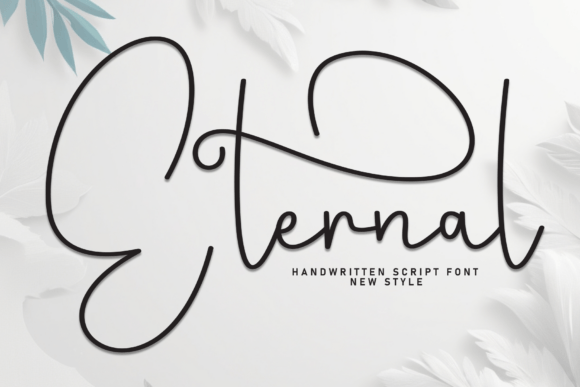
Eternal Font: The Charming Allure of Handwritten Display Fonts
In the world of typography, fonts play a crucial role in conveying emotions and setting the tone for any design. When it comes to creating a lasting impression, the right font can make all the difference. This is where Eternal Font comes in – a warm, approachable handwritten display font that embodies casual elegance. In this article, we’ll explore the enchanting world of Eternal Font and how it can elevate your designs to new heights.
What is Eternal Font?
Eternal Font is a beautifully crafted handwritten display font that exudes warmth and approachability. Its unique charm lies in its ability to strike the perfect balance between elegance and playfulness. This font is designed to add a touch of personality to your designs, making them more relatable and engaging.
Perfect for Heartfelt Wedding Invitations and Playful Cards
Eternal Font is an ideal choice for designing heartfelt wedding invitations, playful cards, and other creative projects that require a personal touch. Its delightful personality infuses your designs with a fun element, making emotions more tangible and creating a deep connection with your audience.
Whether you’re a designer, artist, or simply a crafty individual, Eternal Font is sure to become your go-to choice for projects that require a dash of whimsy and charm. From wedding stationery to greeting cards, this font is guaranteed to add a touch of magic to your creations.
The Power of Handwritten Typography
Handwritten typography has a unique ability to connect with audiences on an emotional level. It adds a personal touch to your designs, making them more relatable and human. Eternal Font takes this to the next level with its elegant yet playful script.
The benefits of using handwritten typography like Eternal Font are numerous:
- Emotional Connection: Handwritten typography creates an emotional connection with your audience, making your designs more memorable and impactful.
- Personality: Handwritten fonts like Eternal Font add a touch of personality to your designs, setting them apart from generic, sans-serif fonts.
- Versatility: Eternal Font can be used for a wide range of design applications, from wedding invitations to social media graphics.
Tips for Using Eternal Font in Your Designs
To get the most out of Eternal Font, here are some design tips to keep in mind:
- Pair with contrasting fonts: Combine Eternal Font with contrasting fonts to create visual interest and hierarchy in your designs.
- Experiment with colors: Eternal Font looks stunning in a variety of colors. Experiment with different hues to find the perfect match for your design.
- Play with textures: Add texture to your designs by incorporating subtle patterns or backgrounds that complement Eternal Font.
Get Inspired with Eternal Font
Eternal Font is more than just a font – it’s a design inspiration. Its charming allure is sure to spark creativity and motivate you to create stunning designs. Here are some ways to get inspired with Eternal Font:
Eternal Font Features
Eternal Font boasts an impressive range of features that make it a versatile and practical choice for designers. Some of its key features include:
- Handwritten script: Eternal Font features a beautiful, handwritten script that’s perfect for adding a personal touch to your designs.
- Extensive character set: Eternal Font includes an extensive character set, ensuring that you have access to a wide range of letters, numbers, and symbols.
- Scalable: Eternal Font is designed to be scalable, making it suitable for use in a variety of design applications, from business cards to billboards.
The Many Uses of Eternal Font
Eternal Font is an incredibly versatile font that can be used in a wide range of design applications. Here are some examples:
- Wedding stationery: Eternal Font is perfect for designing wedding invitations, save-the-date cards, and other wedding stationery.
- Greeting cards: Use Eternal Font to create playful and heartfelt greeting cards for special occasions.
- Social media graphics: Eternal Font is a great choice for creating social media graphics, such as Facebook posts, Instagram stories, and Twitter headers.
Eternal Font is a charming and elegant handwritten display font that’s perfect for designers looking to add a touch of personality to their work. Its delightful personality, versatility, and range of features make it an excellent choice for a wide range of design applications.